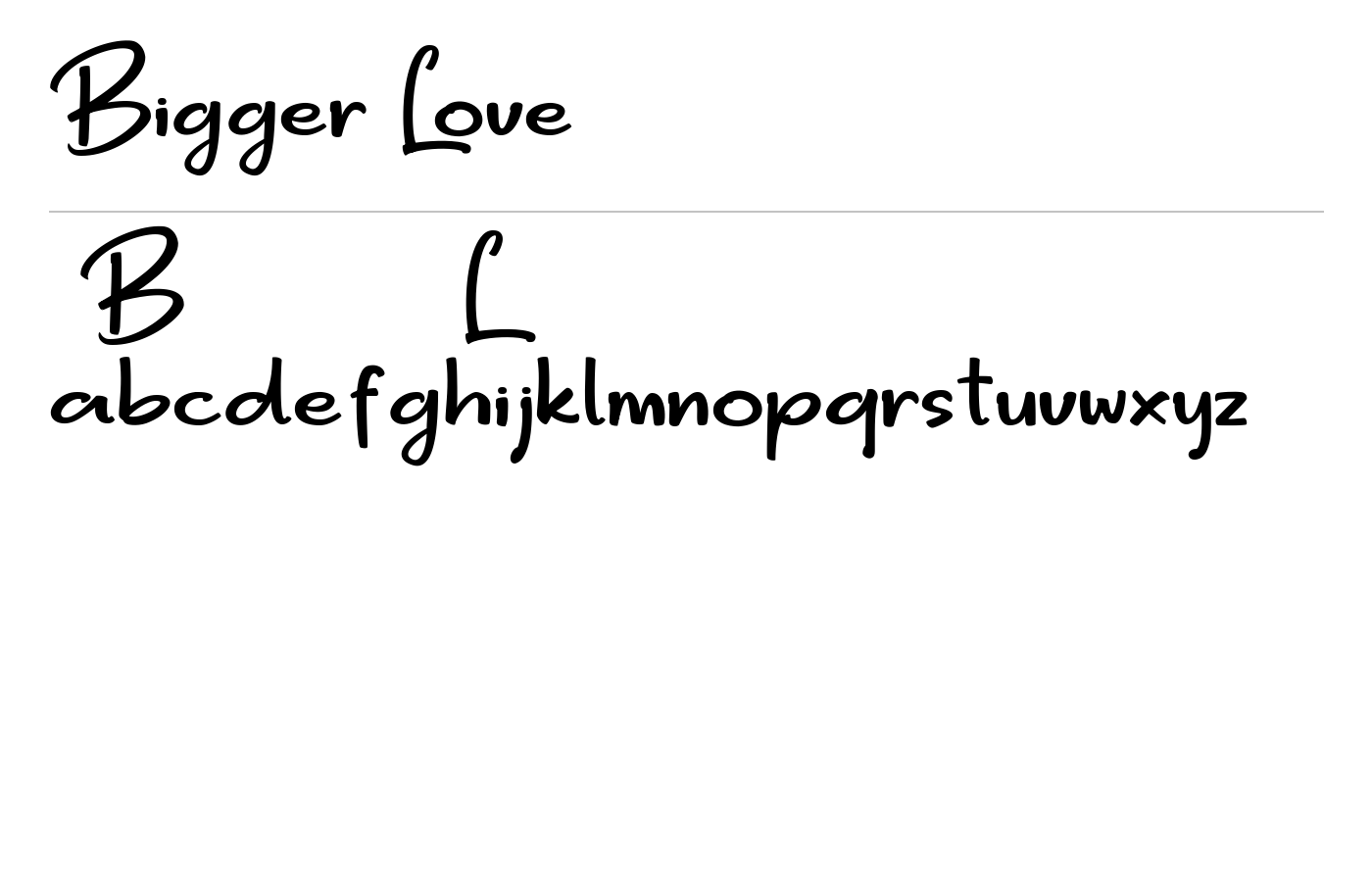
Bigger Love DEMO is a casual, handwritten script font with a friendly and approachable feel. Its smooth, rounded strokes and varying line thickness give it a lively, personalized touch, making it ideal for creative projects, invitations, and brands seeking warmth and charm. This font works best for headlines, logos, and packaging where a playful yet legible style is desired.
Bigger Love DEMO Font
About Bigger Love DEMO Font
| Font family | Bigger Love DEMO Font |
| Designer | Konstantine Studio |